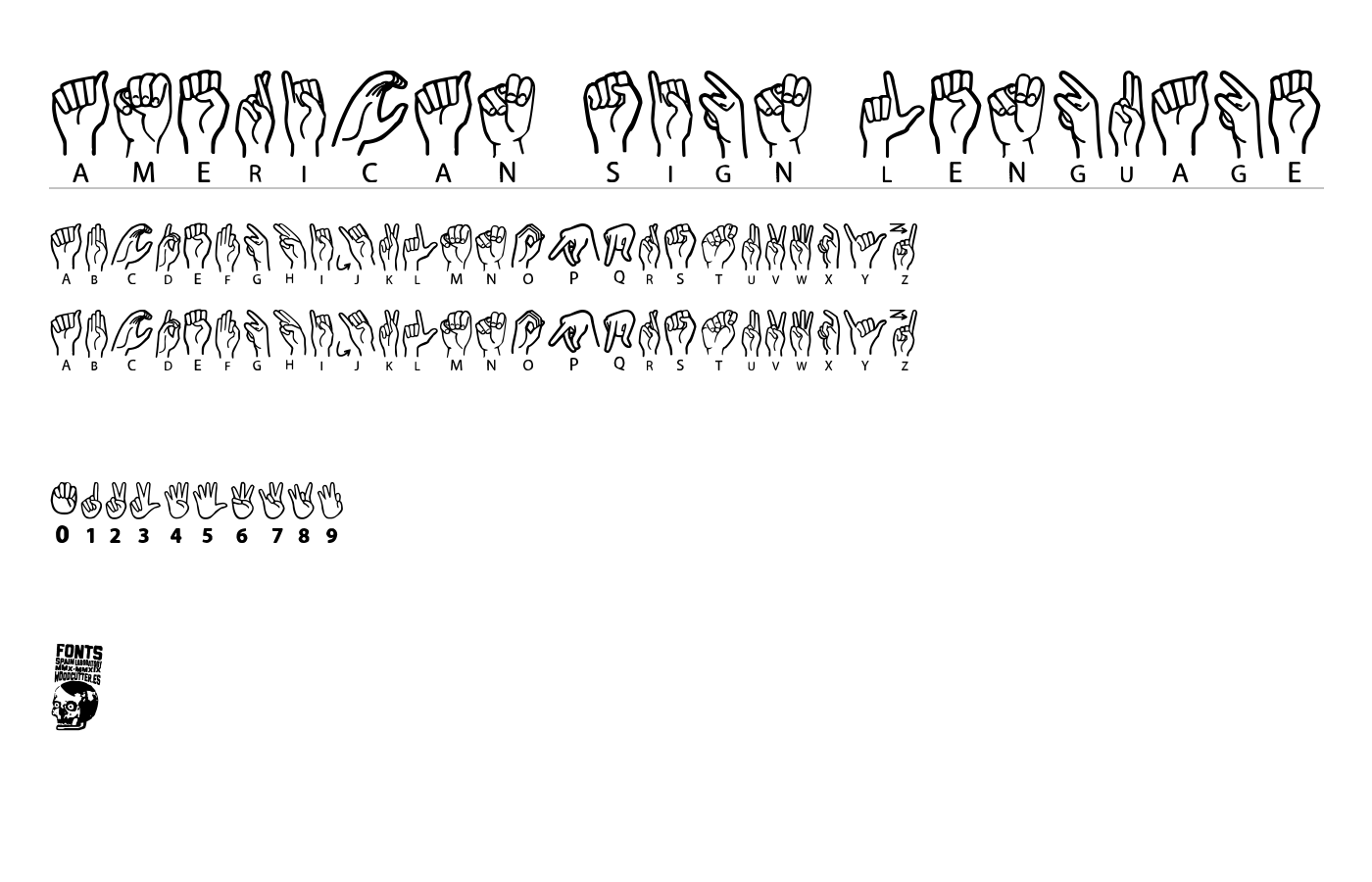
The American Sign Language Font is a unique and illustrative display typeface that visually represents letters and numbers using hand gesture symbols from ASL. With its clear, outlined style and consistent line weight, it offers an engaging, educational feel, perfect for projects related to accessibility, communication, and inclusivity. This font works well for headers, signage, or learning materials where conveying sign language visually enriches the message.
American Sign Lenguage Font
About American Sign Lenguage Font